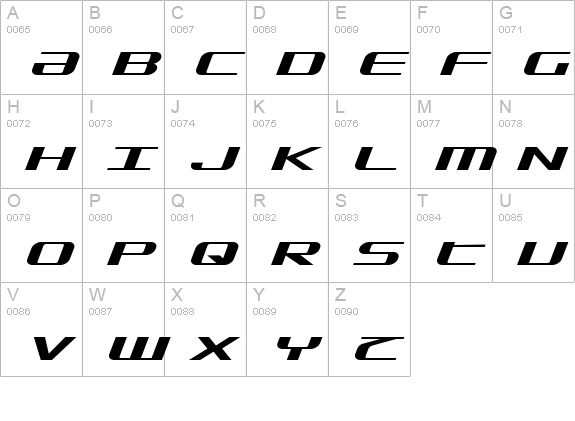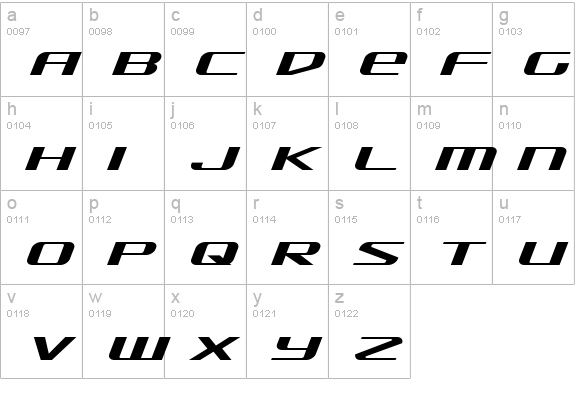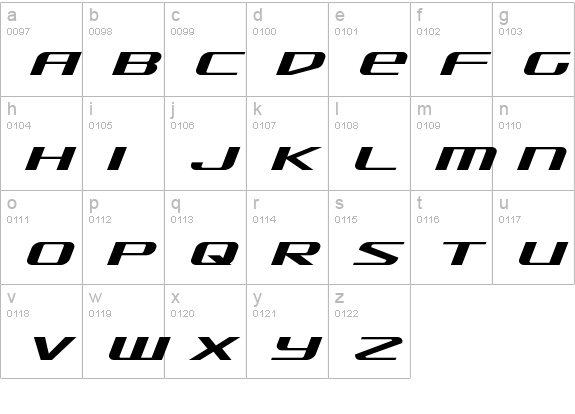
SDF Expanded Italic is a distinctive, extended-width, italic variant in the SDF typeface family \xE2\x80\x94 well suited to design and typography projects.
The SDF Expanded Italic font is a stylish and modern typeface that adds a touch of sophistication to any project. Its sleek design and slanted letters create a dynamic and bold look that is perfect for headlines, titles, and branding. The expanded letterforms provide a unique and eye-catching appearance that will make your text stand out. This font is not only aesthetically pleasing but also highly versatile, making it suitable for a wide range of design applications. Whether you're working on a website, poster, or logo, the SDF Expanded Italic font will add a touch of elegance and professionalism to your work. Best of all, this font is free to download at FontsMarket.com, making it accessible to designers of all levels. Don't miss out on the opportunity to enhance your projects with this stunning typeface. Download the SDF Expanded Italic font today and elevate your designs to the next level.